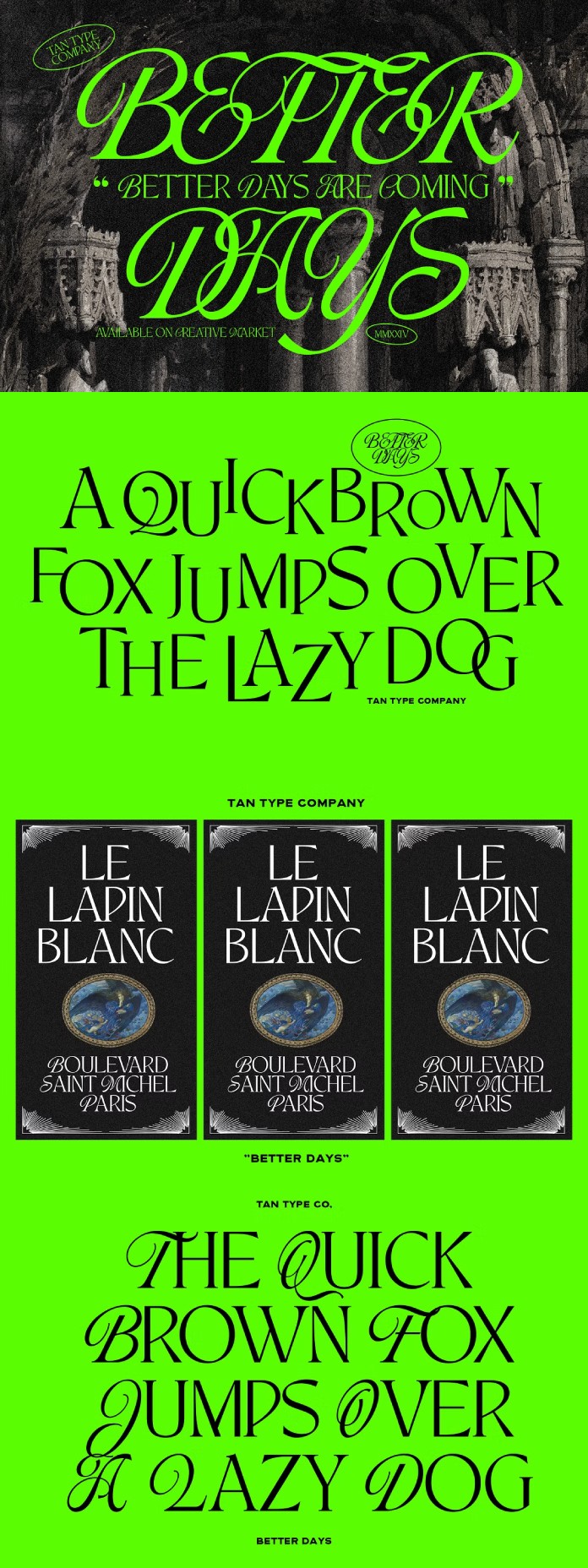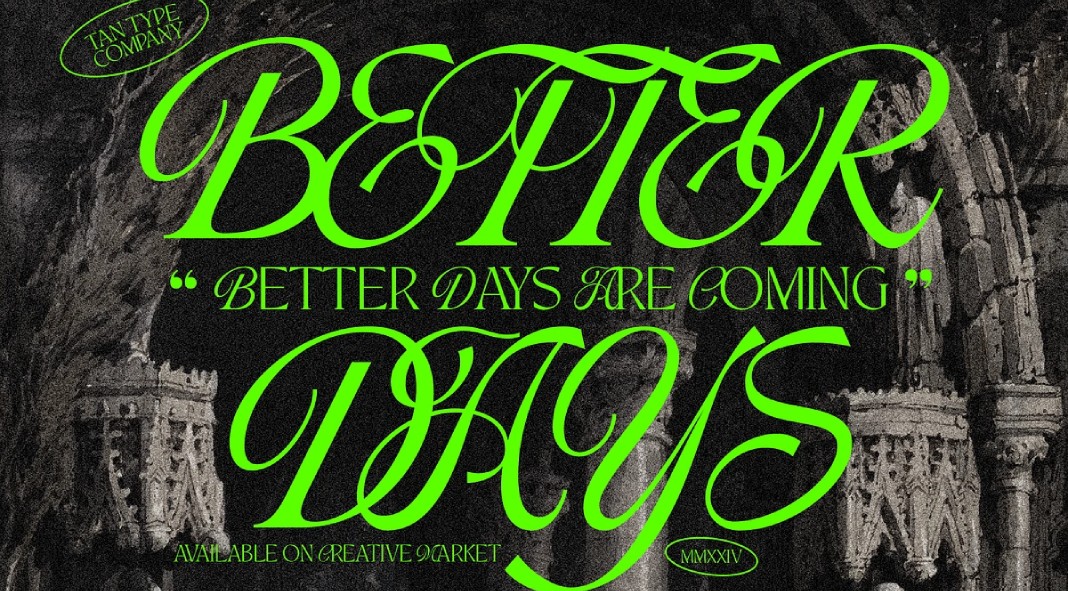
Embrace Nostalgia with the TAN Better Days Typeface
Step into a realm of nostalgic elegance with TAN BETTER DAYS, the latest offering from TanType. This typeface is a perfect blend of retro charm and modern sophistication, designed to evoke a sense of timeless beauty. With its unique character and versatility, TAN BETTER DAYS is an ideal choice for branding, editorial designs, social media graphics, and more.
A Closer Look
TAN BETTER DAYS features a distinctive style that captures the essence of vintage aesthetics while ensuring contemporary relevance. The typeface boasts elegant curves and an understated yet impactful presence, making it a standout choice for various design projects.
Key Features:
- Vintage Appeal: The typeface’s design draws inspiration from classic fonts, offering a touch of nostalgia.
- Versatility: Ideal for a wide range of applications including logos, headlines, and body text.
- Attention to Detail: Each character is crafted with precision, ensuring readability and aesthetic appeal.
Perfect for Creative Projects
Whether you’re working on a branding project, an editorial piece, or social media graphics, TAN BETTER DAYS offers the flexibility and charm needed to elevate your designs. Its timeless appeal ensures that your work will resonate with audiences across different platforms and media.